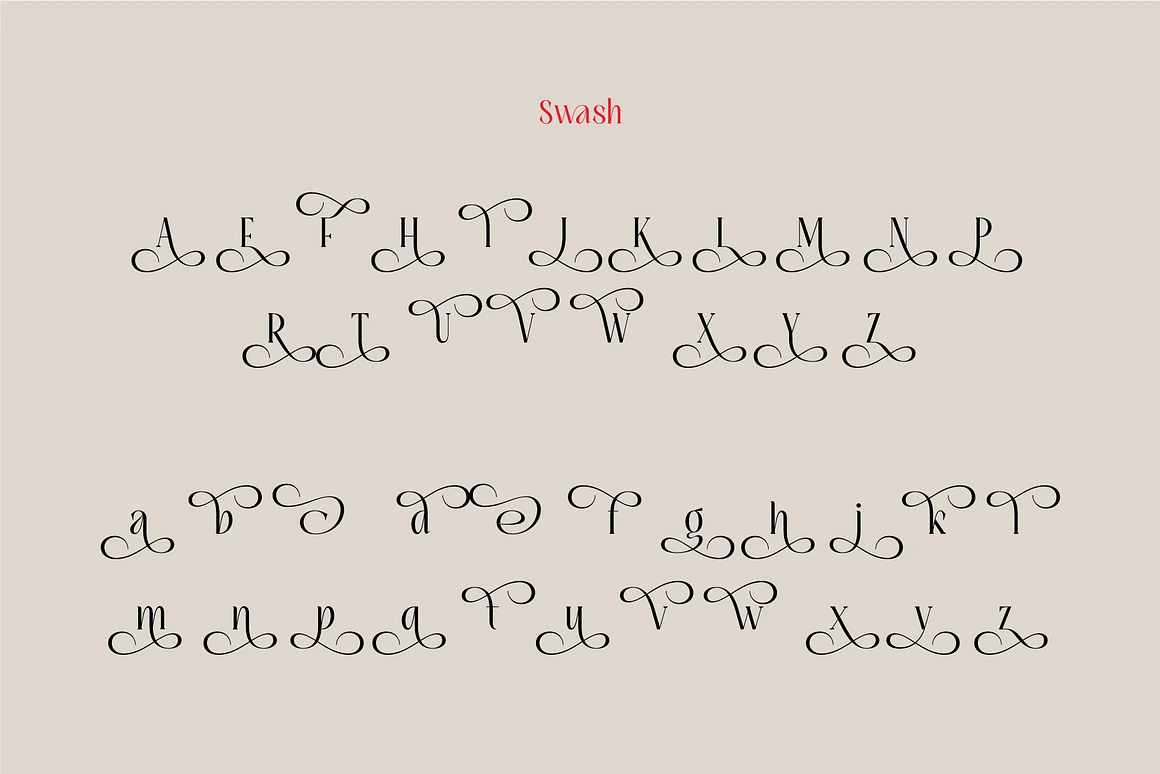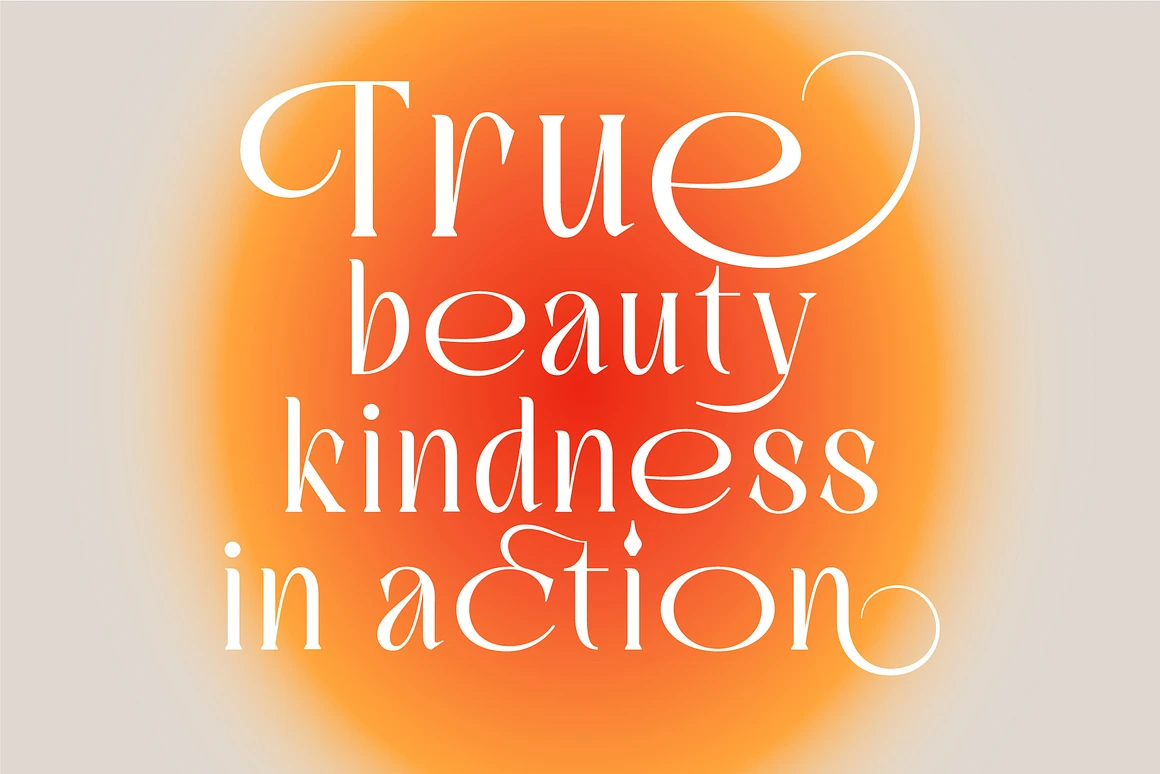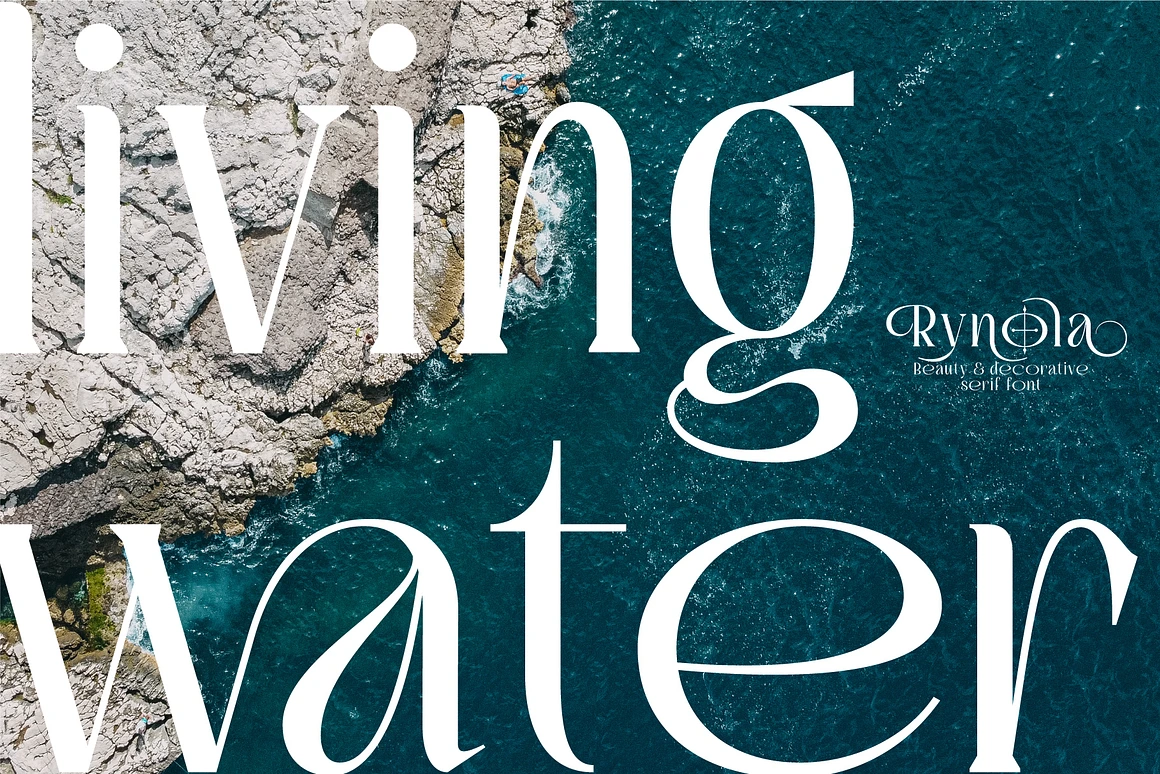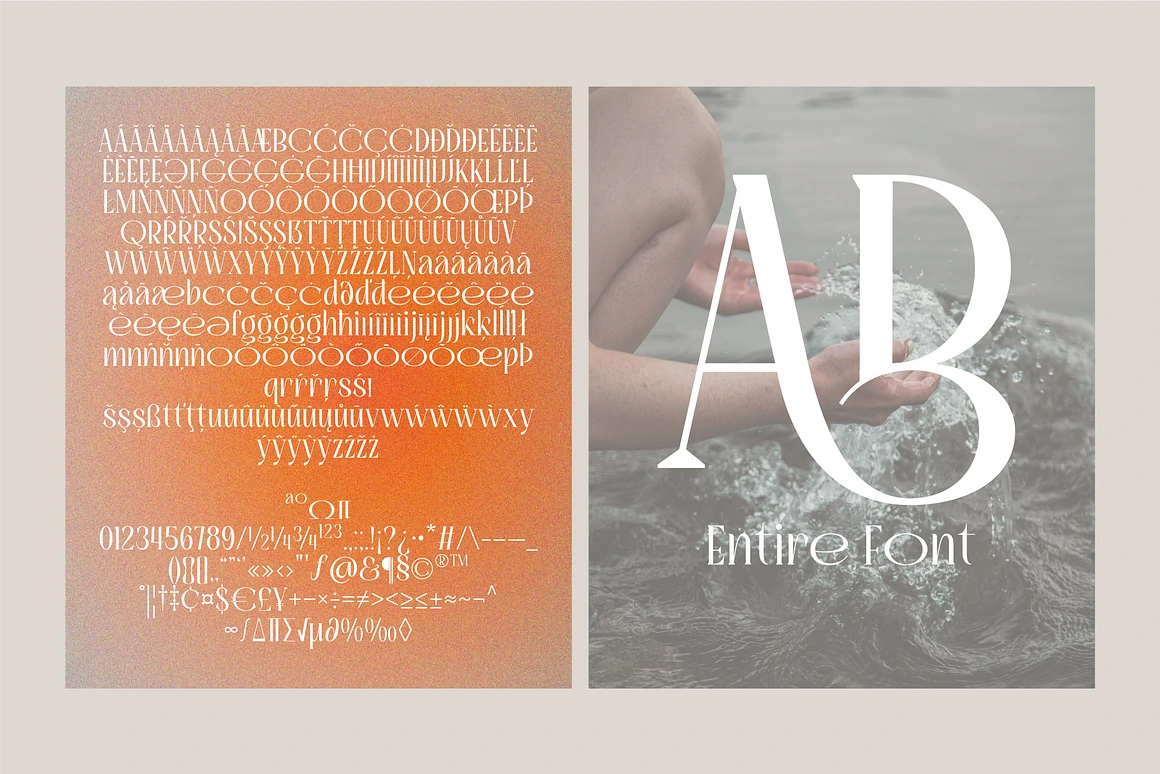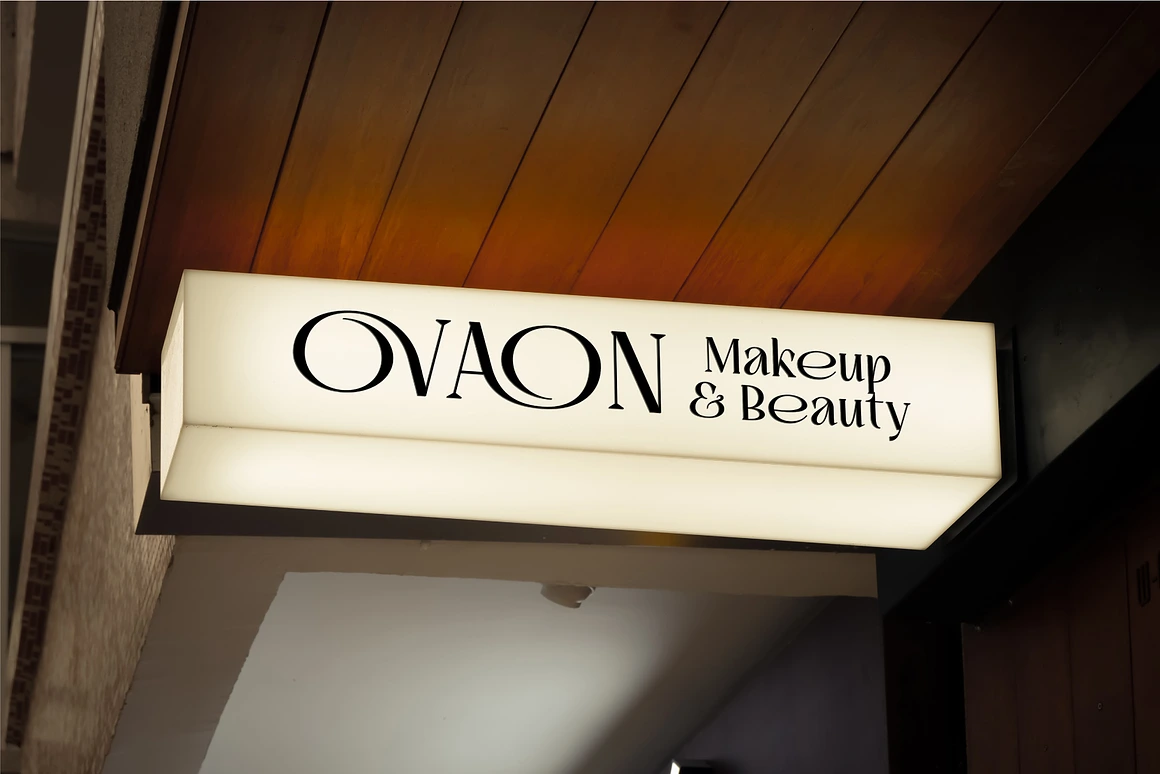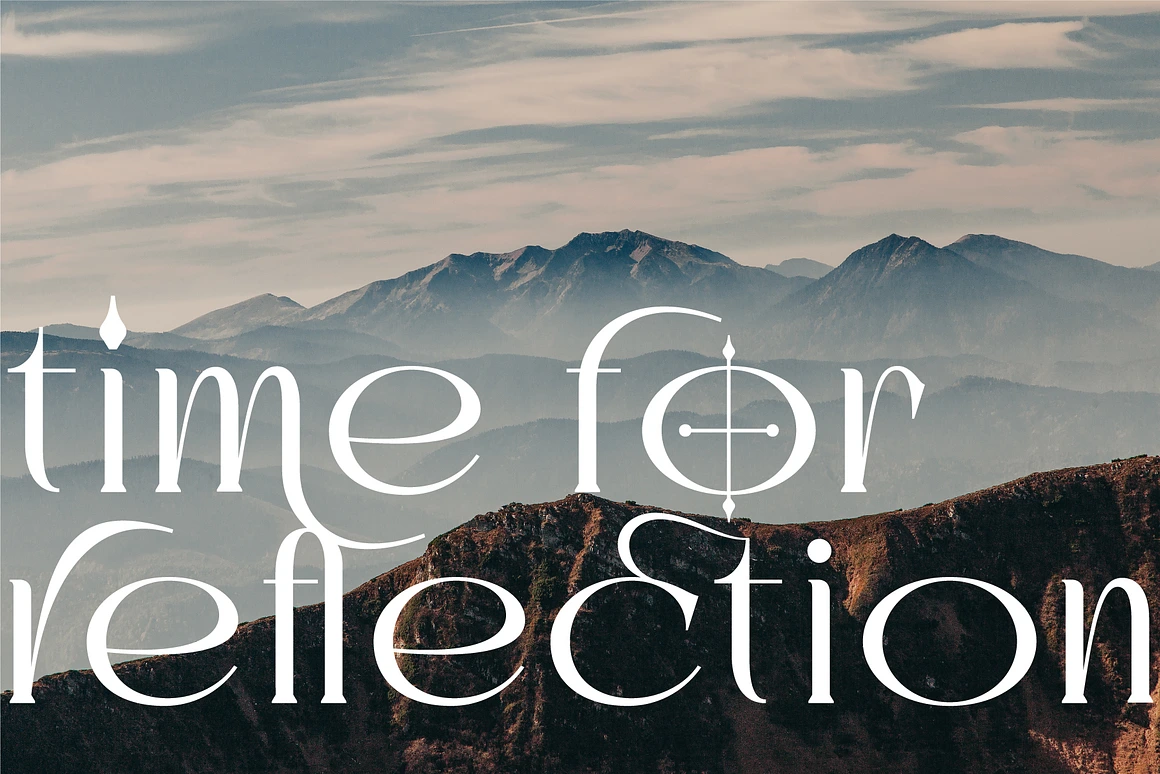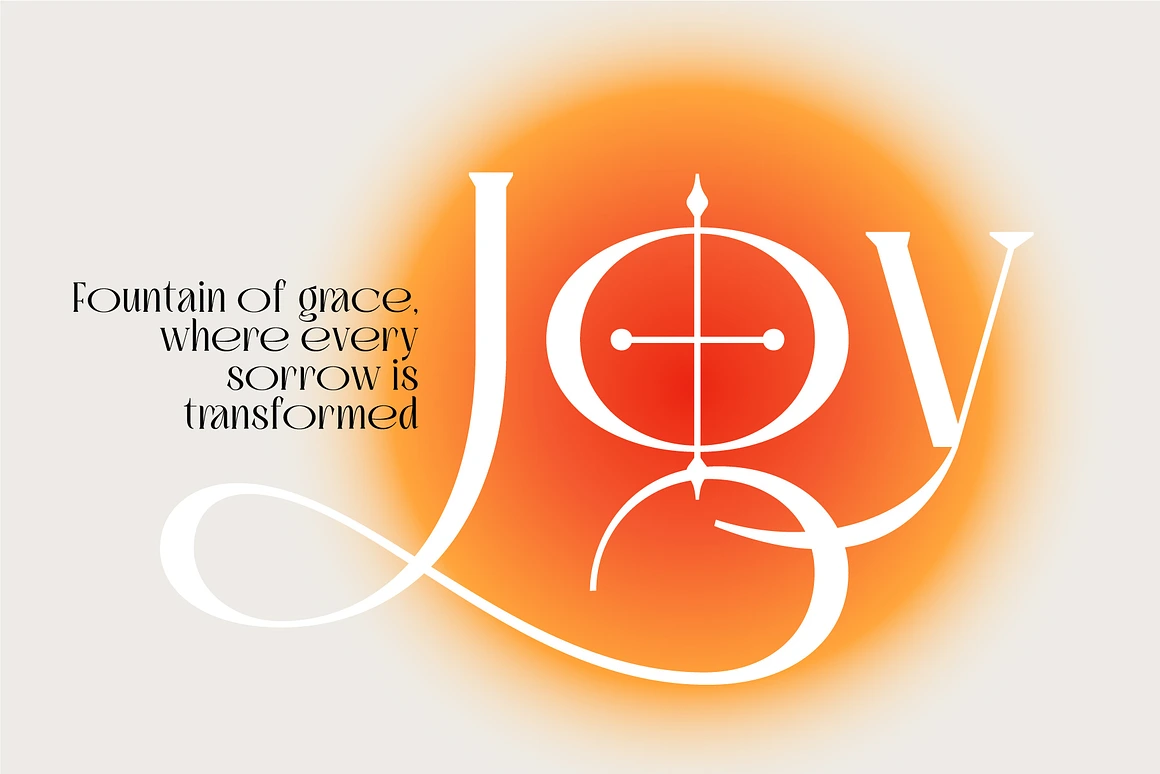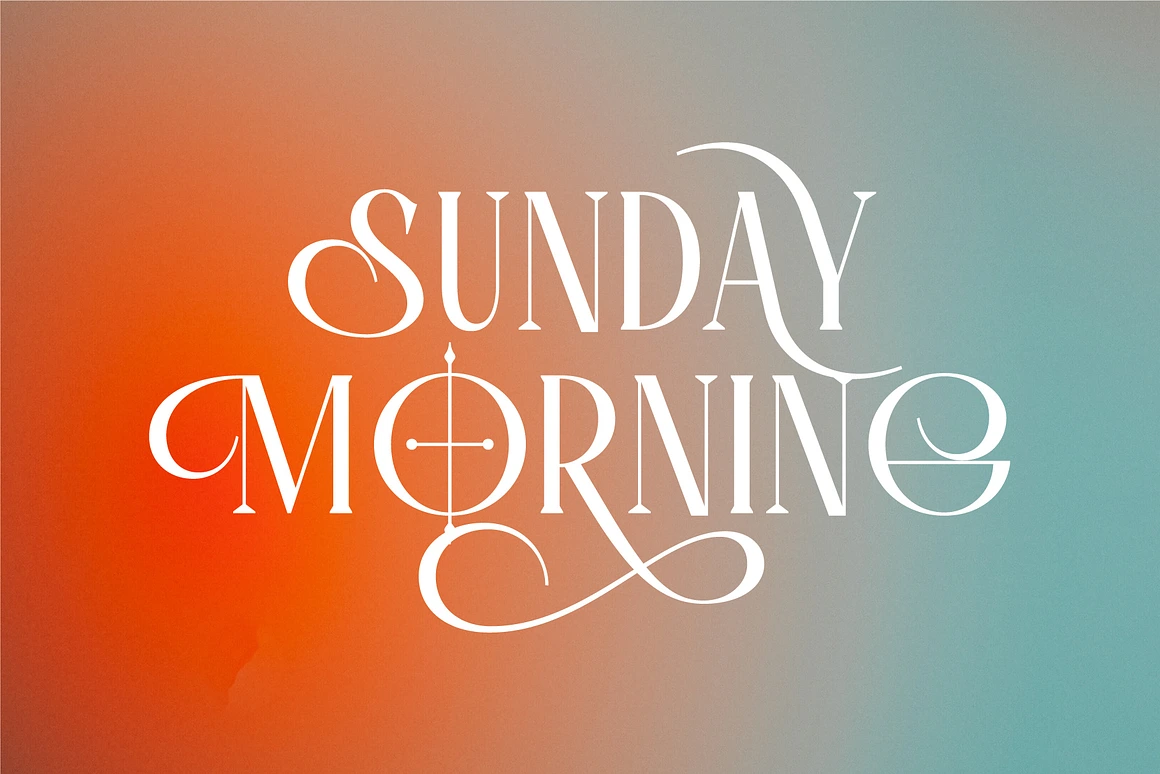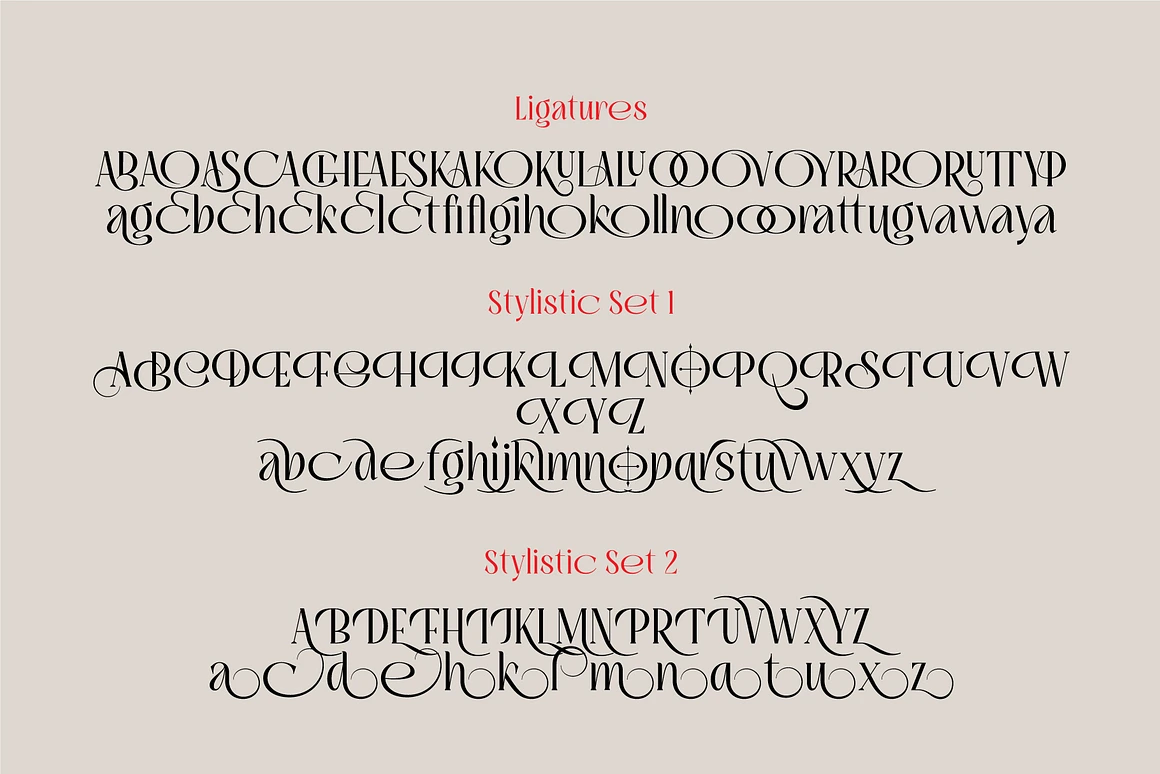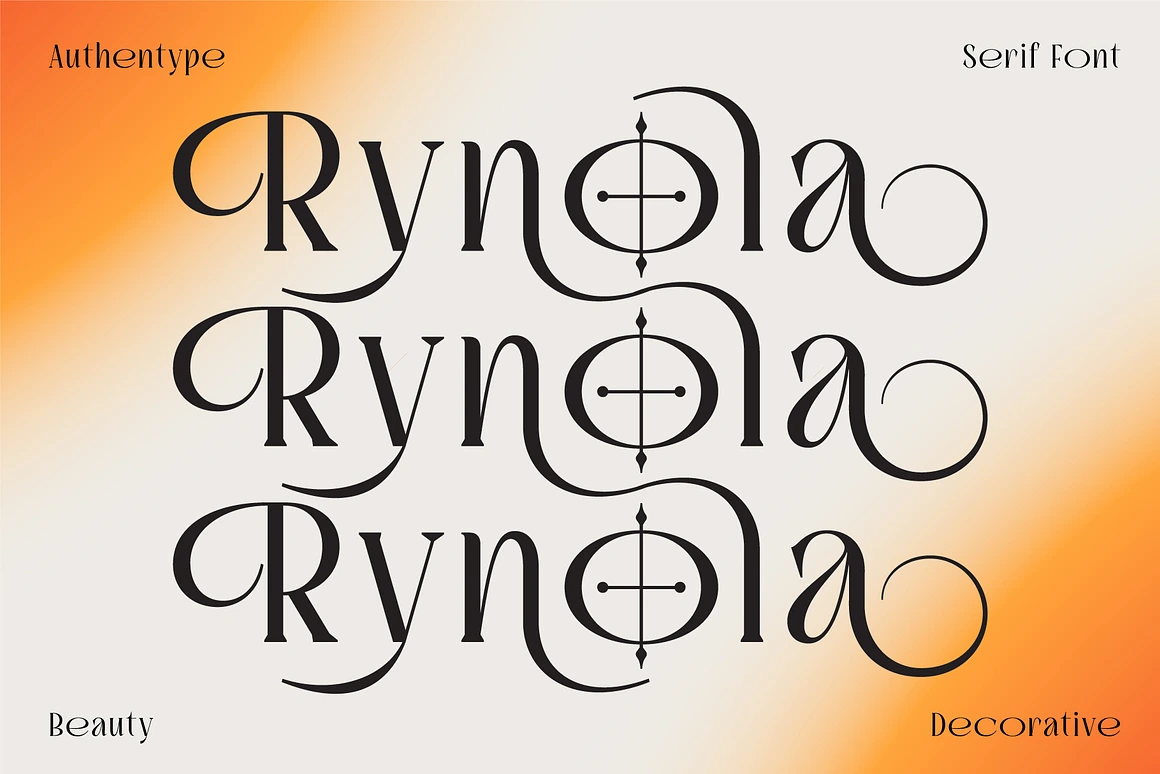
Rynola Serif Decorative Font
Rynola Complete Family
Rynola Serif Decorative Font, Crafted with precision and imbued with an independent beauty concept, Rynola is more than just a typeface it’s a statement.
With its graceful curves and sophisticated lines, Rynola exudes a sense of refinement that captivates the eye. Each character is meticulously designed to strike the perfect balance between tradition and innovation, making it ideal for projects that demand both classic charm and modern appeal.
Whether you’re designing a logo, crafting a magazine layout, or creating stunning invitations, Rynola font versatility shines through. Its serif design lends a sense of authority and sophistication, while its unique personality adds a touch of individuality to any project.